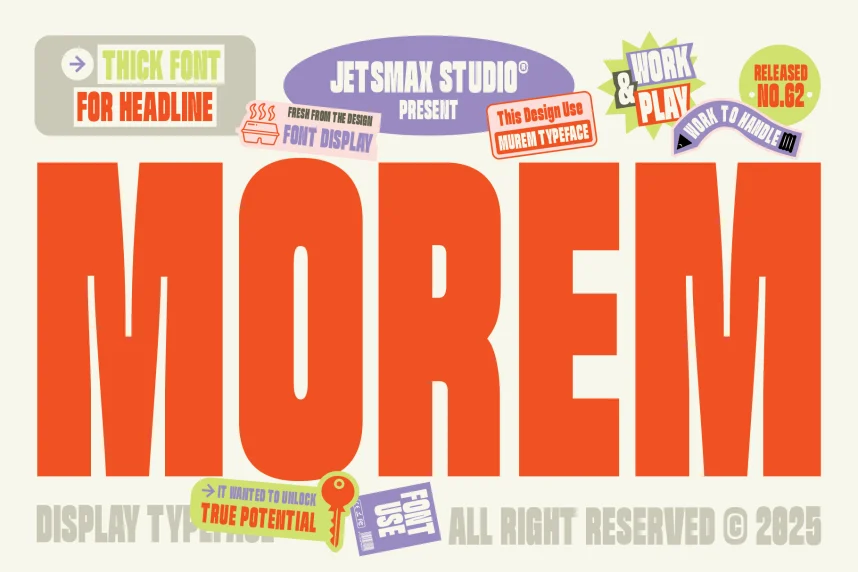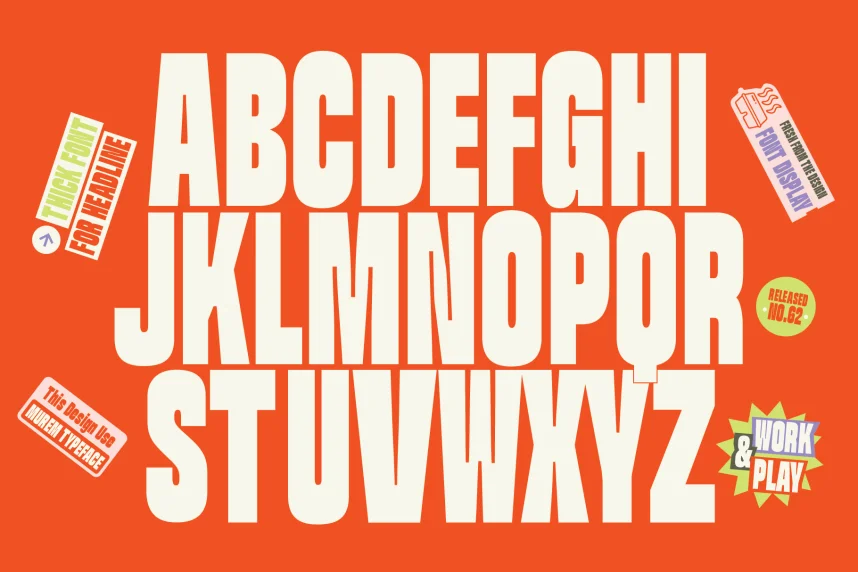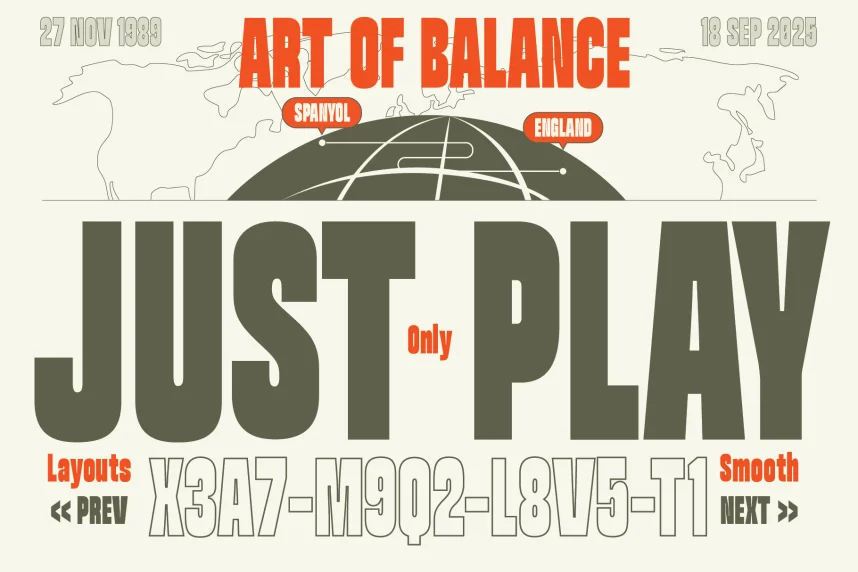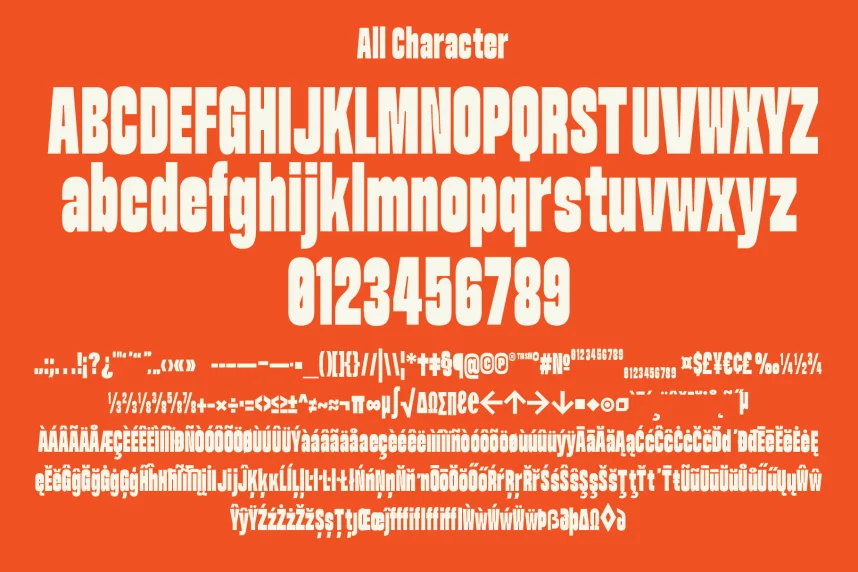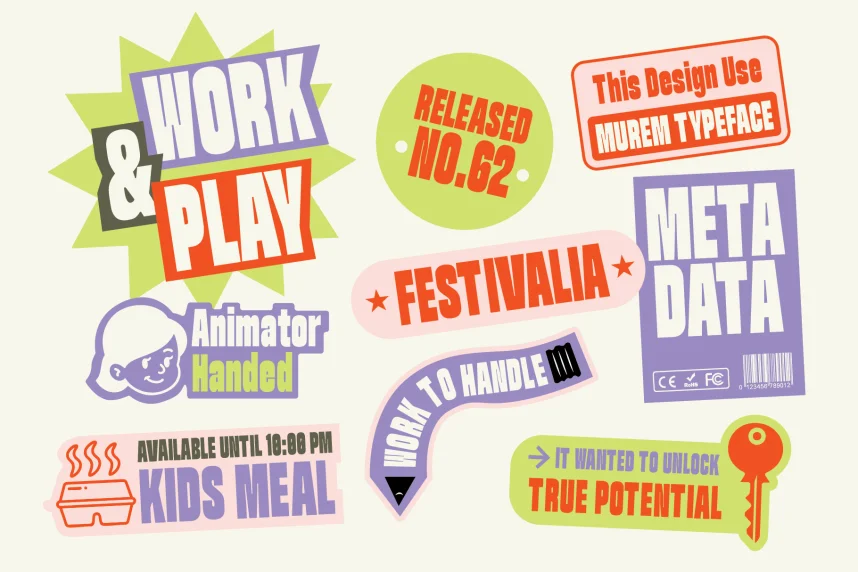
Morem Font helps designers maintain clean layouts while preserving legibility across different content formats.
This font is generally a sans-serif typeface with restrained curves and consistent letter spacing. The design favors simplicity, reducing visual fatigue in repeated reading environments.